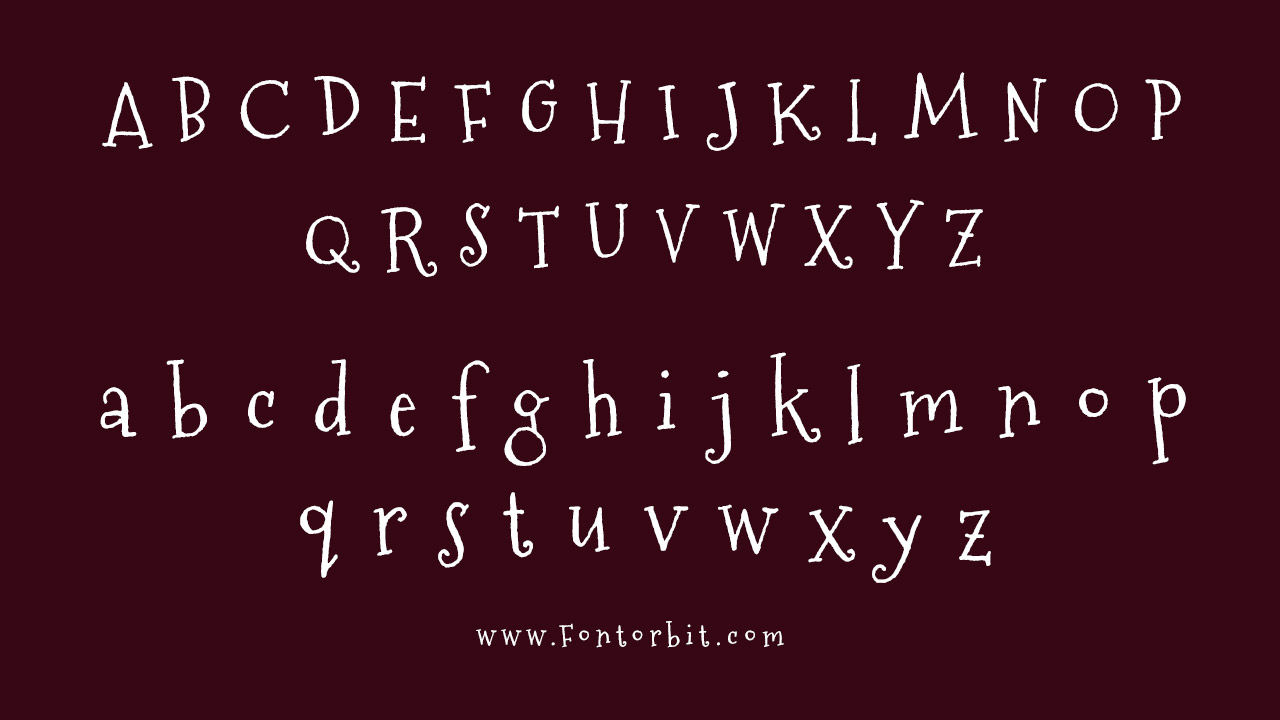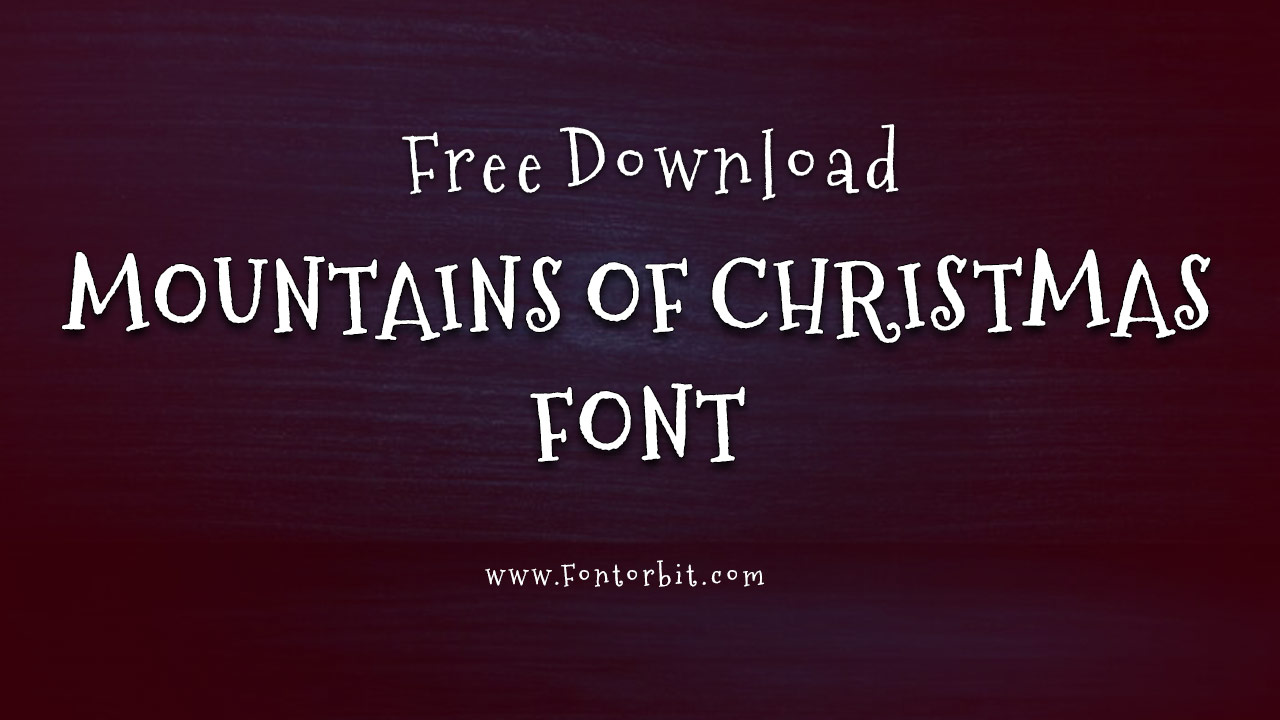
Mountains of Christmas is a delightful and whimsical typeface known for its playful and hand-drawn design, evoking the charm of holiday cheer and childlike wonder.
Created by Crystal Kluge and released by Tart Workshop, this font is perfect for informal and lighthearted writing projects. With its unique and bouncy style, Mountains of Christmas brings a festive feel to any design, making it a popular choice for creatives seeking to add a touch of joy and humor to their work.
The Mountains of Christmas font family includes both Regular and Bold styles that feature a full set of characters, including uppercase and lowercase letters, numbers, punctuation marks, and various special glyphs.
- Holiday Cards
- Party Invitations
- Seasonal Posters
- Gift Tags
- Decorative Crafts
Mountains of Christmas font excels in creating engaging headlines, festive display text, and other design elements that benefit from a joyful and creative touch. Its hand-drawn, whimsical style makes it an excellent choice for adding a cheerful, artistic flair to a variety of media.
Mountains of Christmas Font is a versatile tool for various design contexts due to its playful and sketch-inspired design. The font works exceptionally well in both digital and print media, making it a popular choice among designers. Its easy-to-read, joyful style fits seamlessly into a wide range of design projects, enhancing visual appeal and making content more inviting and engaging.
2.What Is The Origin Of The Mountains Of Christmas Font?
Mountains of Christmas Font was designed by Crystal Kluge and released by Tart Workshop. It draws inspiration from holiday cheer and playful, hand-drawn styles.
4.What Makes Mountains Of Christmas Font Unique?
The unique combination of its hand-drawn appearance and festive feel makes Mountains of Christmas Font stand out. This distinctive style brings a joyful and creative element to design projects.